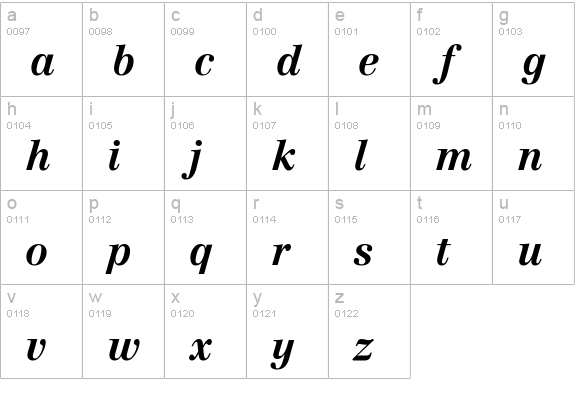
Century Reprise SSi Bold Italic Font Details
Century Reprise SSi Bold Italic is a strong, high-contrast, italic variant in the Century typeface family \xE2\x80\x94 well suited to headlines, attention-grabbing titles, and strong calls-to-action.
Century Reprise SSi Bold Italic is a modern and elegant font that exudes sophistication and style. With its bold and italic design, this font is perfect for making a bold statement in any project. Whether you're designing a logo, creating a poster, or crafting a website, Century Reprise SSi Bold Italic will surely stand out. The best part? This stunning font is available for free download at FontsMarket.com. Now you can elevate your designs without breaking the bank. Don't miss out on the opportunity to add Century Reprise SSi Bold Italic to your font collection and take your projects to the next level. Download it today and let your creativity shine!